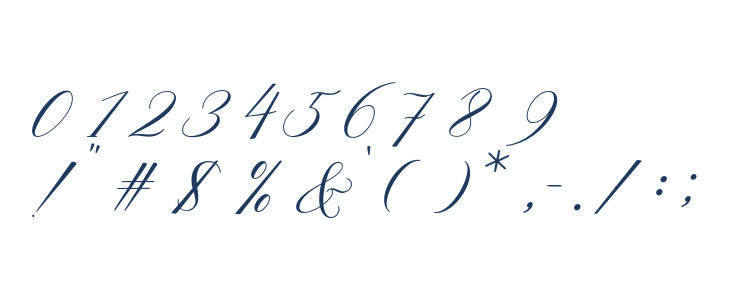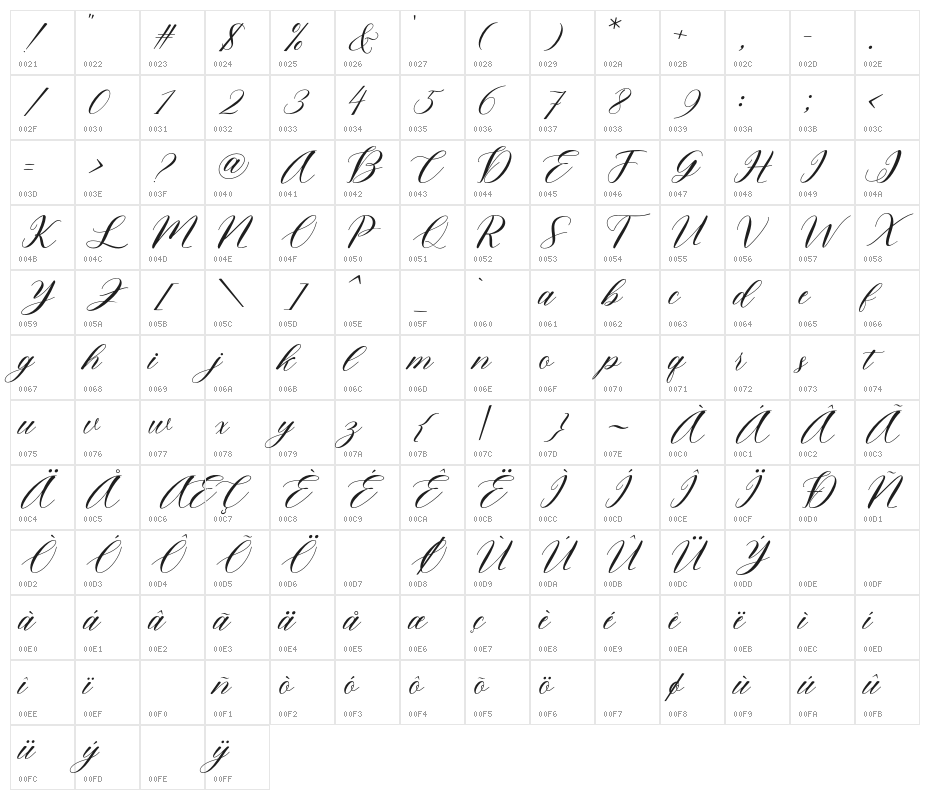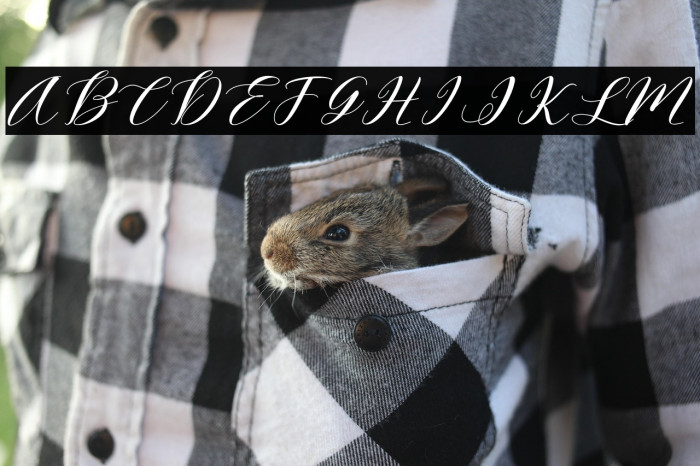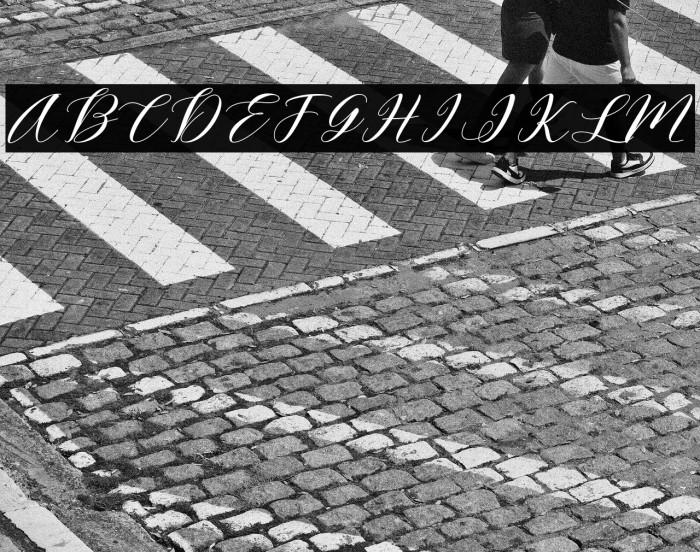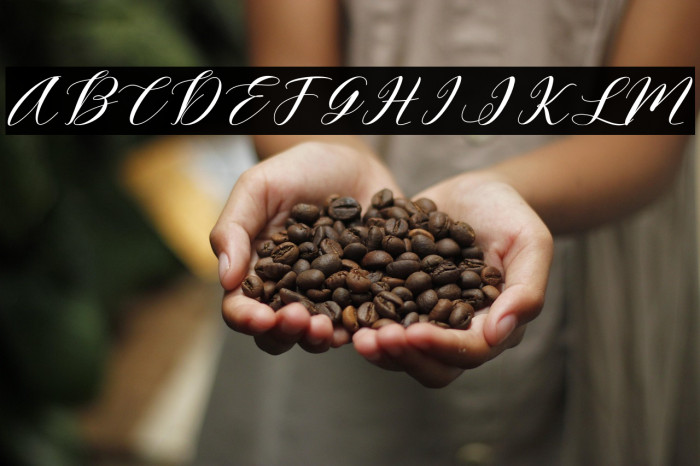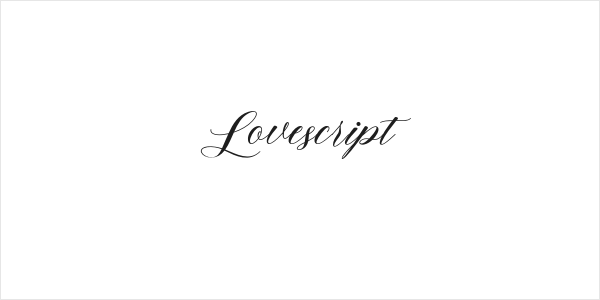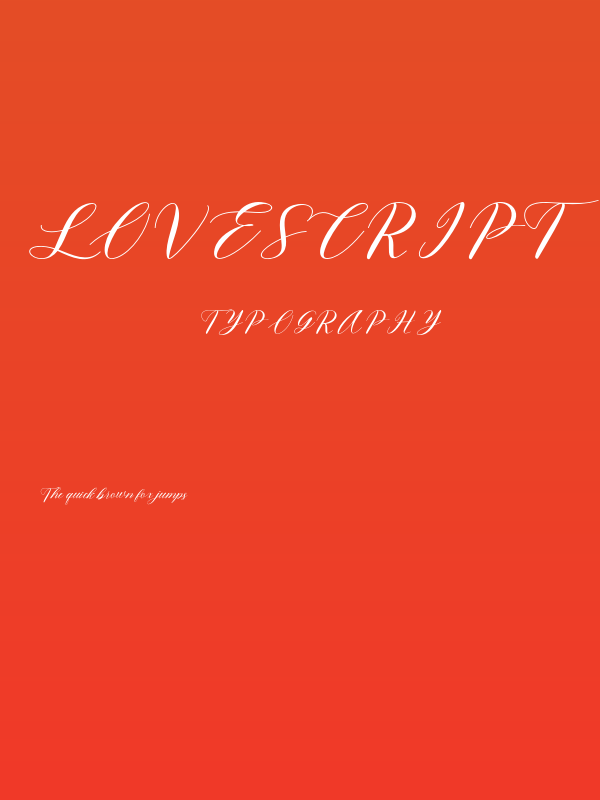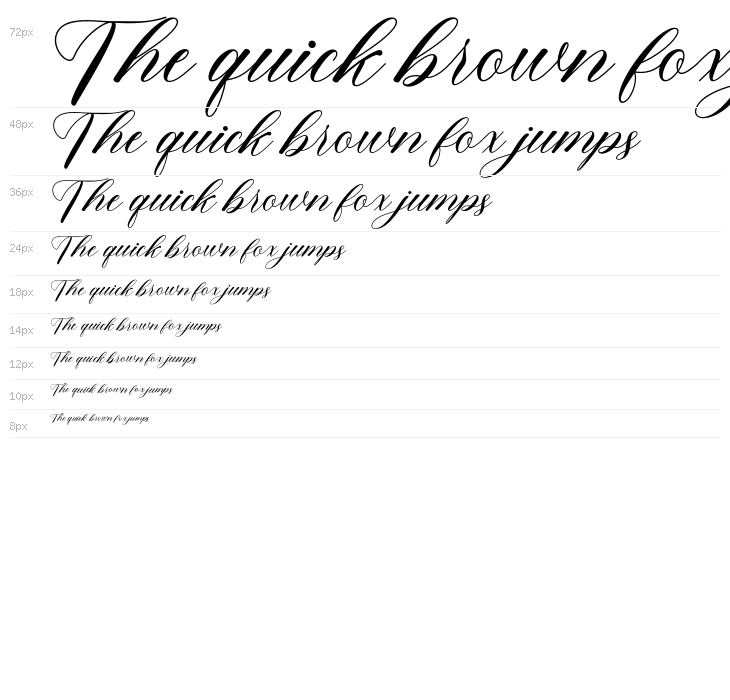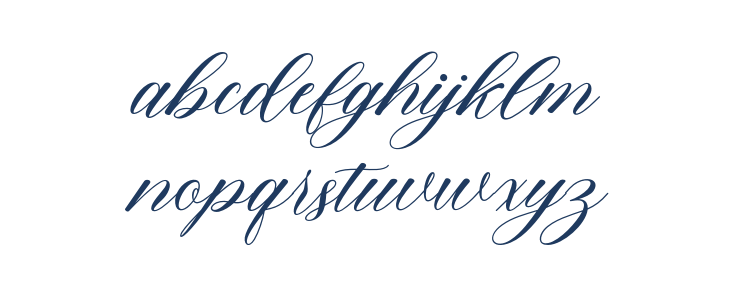
Lovescript Font
Lovescript Description
This font exudes elegance and sophistication with its flowing, cursive script style. Each character is meticulously crafted with graceful curves and delicate loops, giving it a handwritten appearance. The uppercase letters are slightly more ornate, featuring extended flourishes that add a touch of drama. The lowercase letters maintain a consistent flow, enhancing readability while retaining an artistic flair. Numbers and special characters are designed to complement the overall aesthetic, ensuring a cohesive look. This font is perfect for projects that require a personal touch or a sense of luxury.
Overall StyleElegant, Decorative
Use CaseLogos, Invitations, Decorative text
Proposed ProjectsIdeal for wedding invitations, greeting cards, branding, and luxury product packaging.